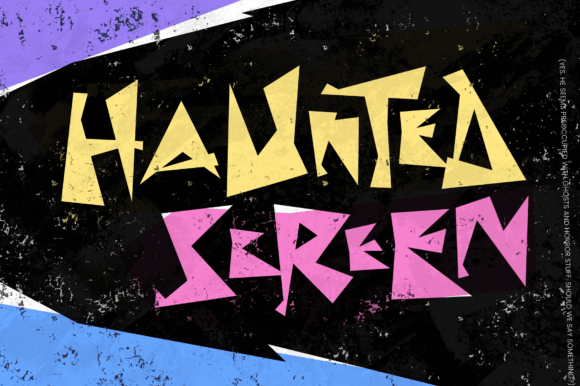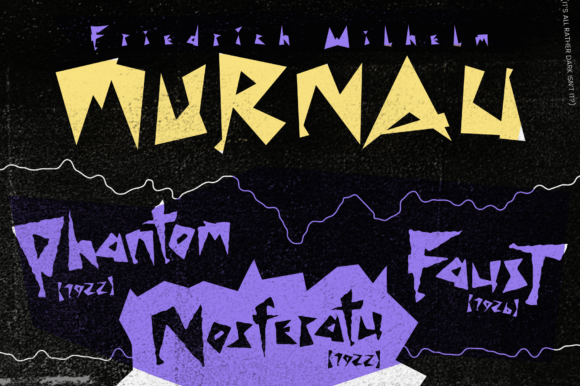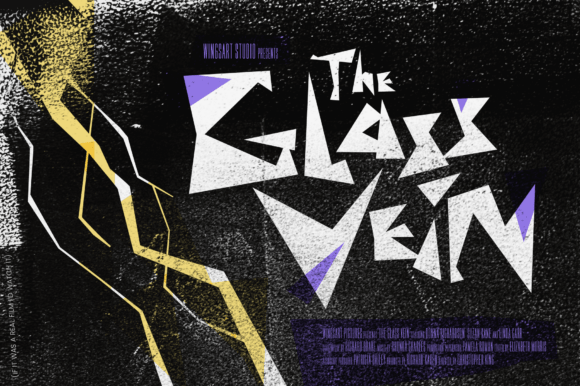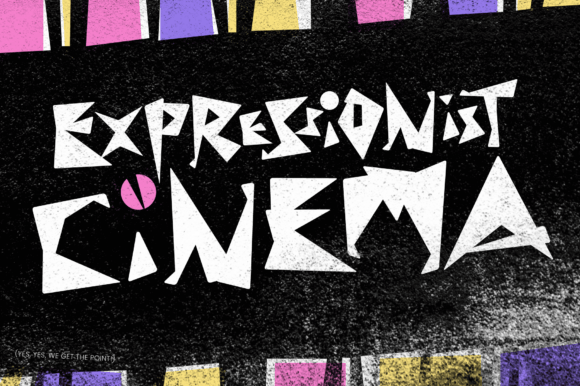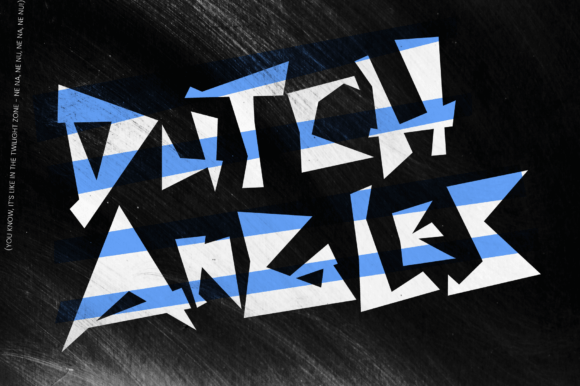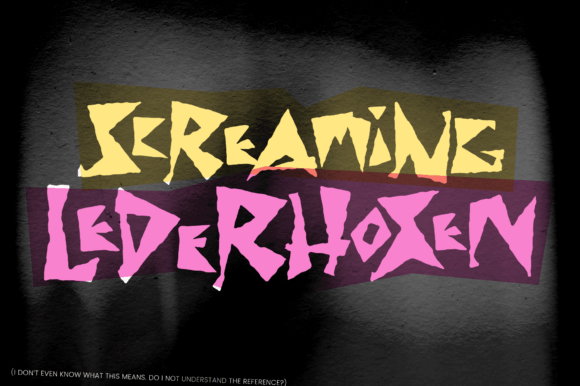
Introduction to Shock Value Font
Shock Value – An Expressionist, Cartoon-ish, Horror Display Font.
Introducing a font that absolutely nobody was waiting for, Shock Value What started as a misguided experiment with triangular shapes grew into a display font reminiscent of German Expressionist cinema, 90s cartoons, and the inevitable dash of horror.
Key Features of Shock Value Font